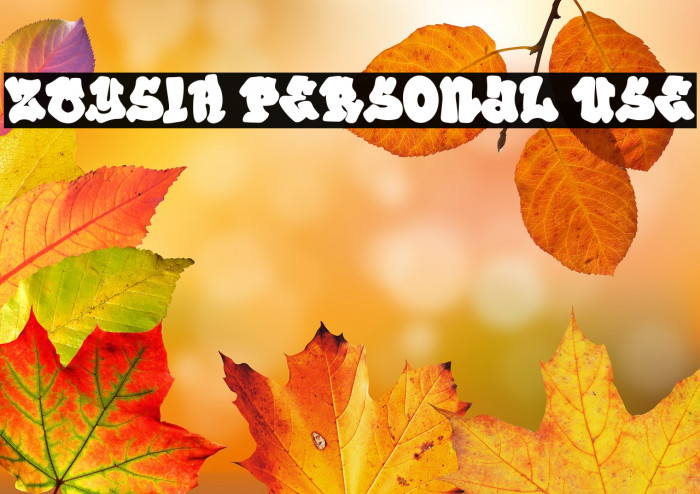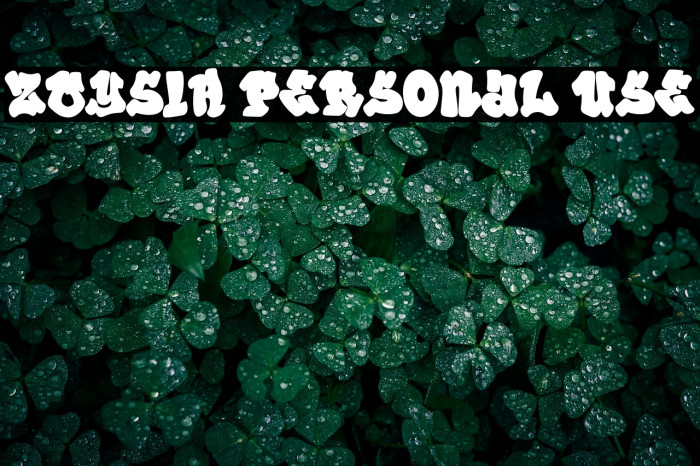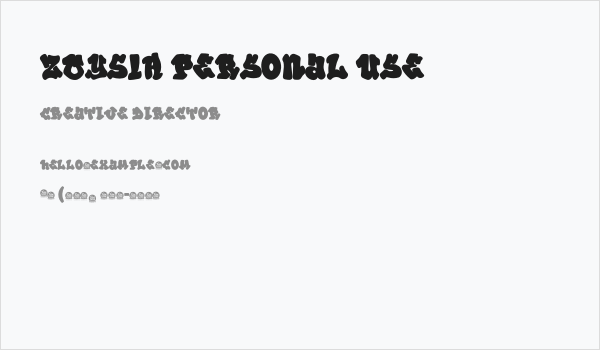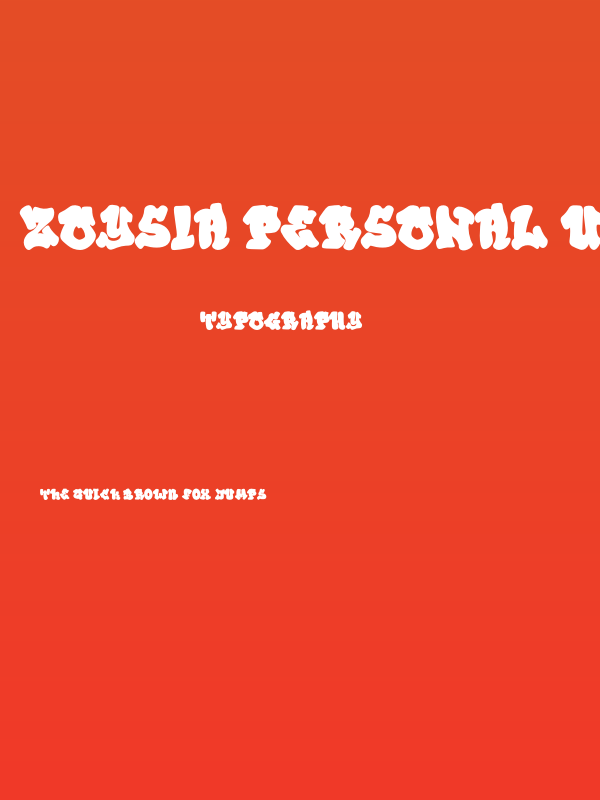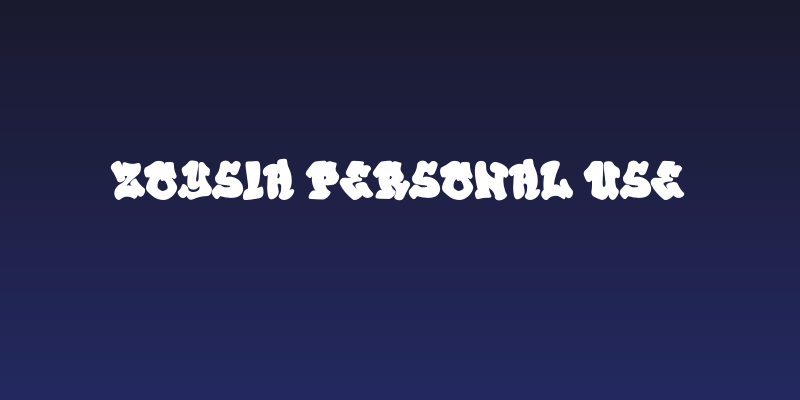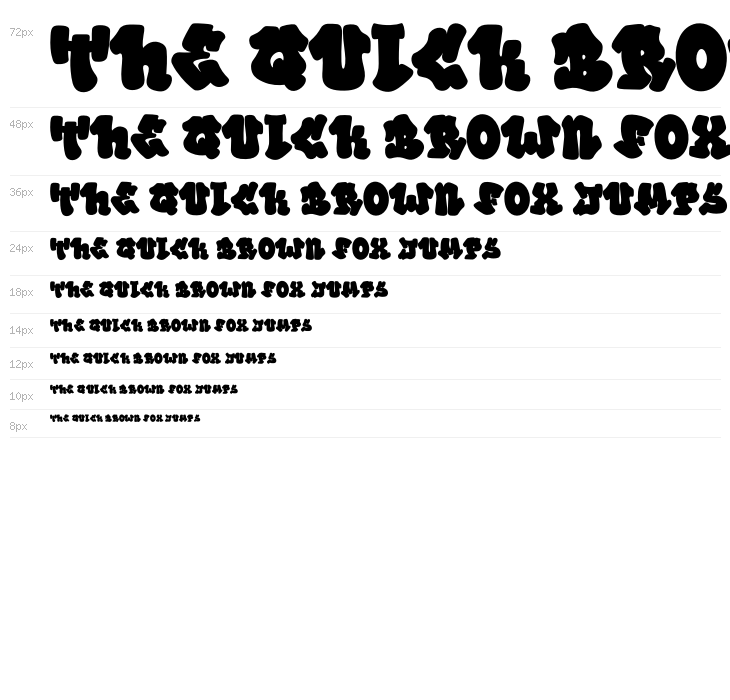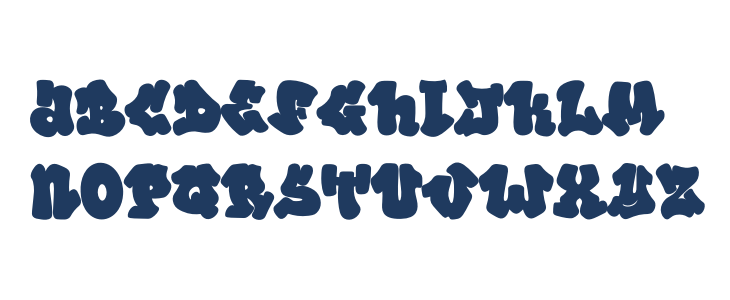
ZOYSIA Personal Use Font
ZOYSIA Personal Use Description
This font features a bold and playful design with thick, rounded strokes that give it a bubbly and dynamic appearance. The characters are heavily stylized, with exaggerated curves and a slightly irregular form that adds a whimsical touch. The uppercase and lowercase letters maintain a consistent style, ensuring a cohesive look across different text compositions. The numbers and special characters are equally bold and expressive, making them stand out. This font is perfect for projects that require a fun and eye-catching aesthetic.
| Use Case | Logos, Posters, Creative Designs |
| Proposed Projects | Ideal for children's books, playful branding, posters, and creative design projects. |